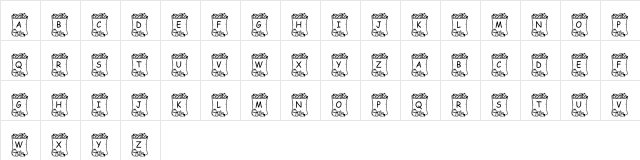
pf_bag4 Regular Font Preview
pf_bag4 Regular
pf_bag4 Regular Font Details
Design Context for pf_bag4 Typeface
pf_bag4 is a composed and adaptable typeface that performs quietly and consistently across a wide range of design contexts.